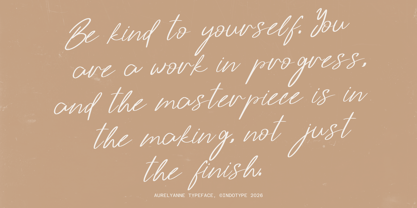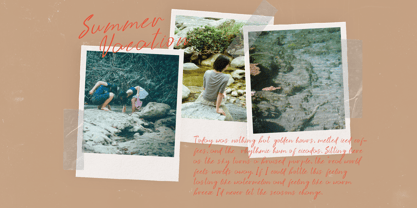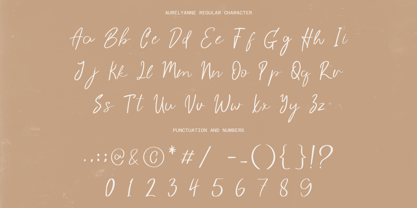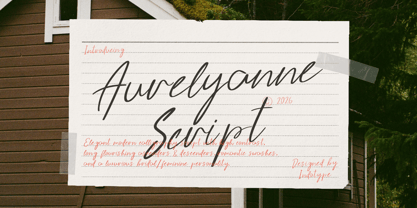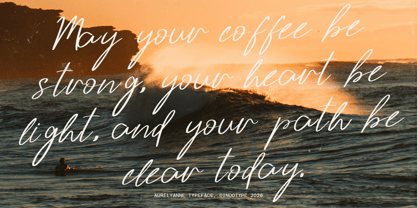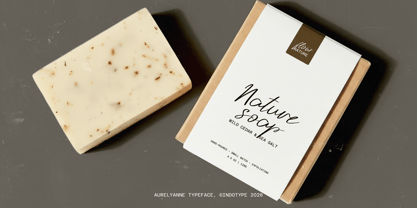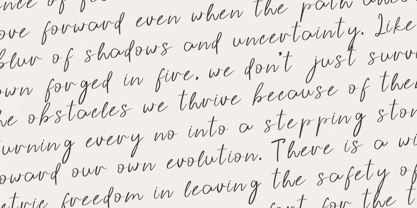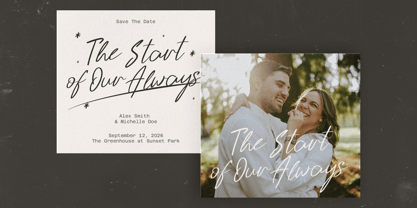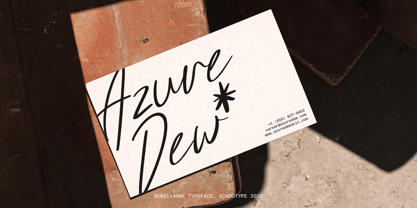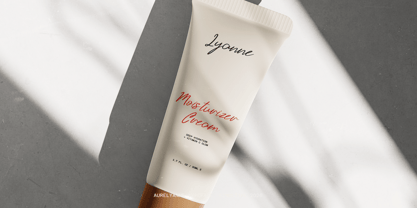
IT Aurelyanne
by Indotype
The IT Aurelyanne Font Family was designed by Frederik Aristaputra and published by Indotype. IT Aurelyanne contains 2 styles and family package options. More about this family
Aurelyanne is a breathtakingly elegant script font that embodies modern sophistication with a distinctly luxurious and feminine personality. Characterized by its long, expressive flourishes and graceful, flowing strokes, this typeface captures the art of fine penmanship in digital form. Each letter dances with a delicate rhythm, creating a sense of movement, romance, and bespoke craftsmanship. Designed for projects that demand beauty and refinement, Aurelyanne is the perfect choice for bridal branding, luxury wedding invitations, high-end fashion labels, and any design seeking to convey elegance and heartfelt emotion. Its extended swashes and fluid connections allow for customizable, one-of-a-kind wordmarks that feel personal and profoundly special. Aurelyanne isn't just a font—it's a signature statement of grace. • Ideal for: Bridal & Wedding Stationery, Luxury Invitations, Fashion & Beauty Branding, Feminine Logotypes, Perfume & Cosmetic Packaging, Romantic Social Media. • Classification: Script, Signature, Calligraphic, Flourished. • Attributes: Elegant, Feminine, Luxurious, Flowing, Romantic, Graceful, Sophisticated.
Designers: Frederik Aristaputra
Foundry: Indotype
IT Aurelyanne